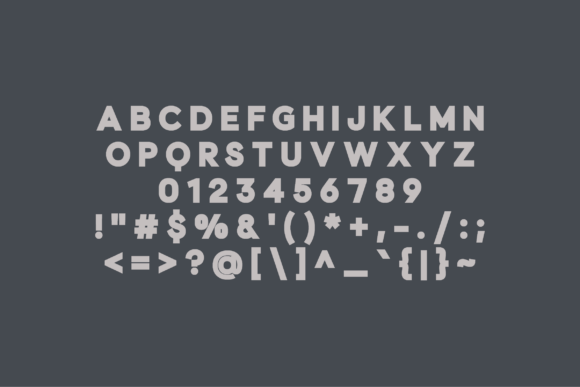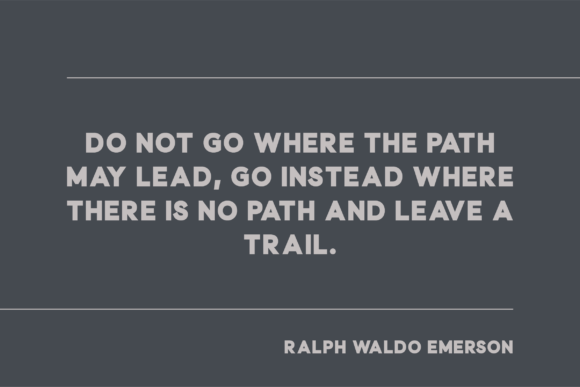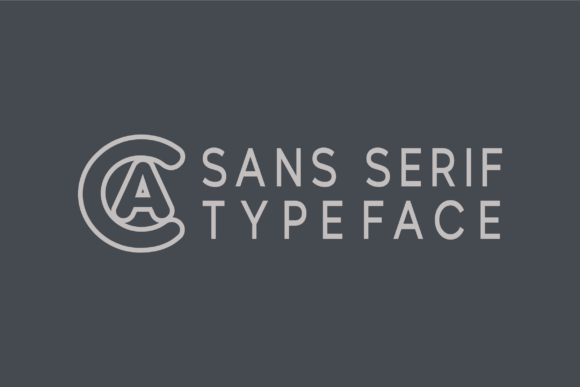
Meet Your New Creative Partner: Cipherset Font
Have you ever stared at a blank canvas, searching for the perfect font to bring your design to life? The struggle is real, but what if we told you that your search is over? Introducing Cipherset Font, a modern and classy sans serif typeface that’s about to become your new best friend.
This beautifully crafted font is designed to elevate your designs, whether it’s a logo, wedding invitation, or advertisement. With its versatility and wide range of characters, Cipherset Font is the perfect addition to any designer’s toolkit. From print to digital, this font is sure to impress and leave a lasting impression on your audience.
- Character Set: This font features a comprehensive character set, including uppercase and lowercase letters, numerals, punctuation marks, and special characters, making it suitable for a variety of applications.
- Unique Characteristic: The Cipherset Font boasts a distinctive, ciphers-inspired design that adds a touch of mystery and sophistication to any text.
- Language Support: The Cipherset Font supports a wide range of languages, including English, Spanish, French, German, Italian, and many others, making it a versatile choice for global applications.
- Kerning and Ligatures: This font features advanced kerning and ligature support, ensuring that text sets are rendered with precision and elegance.
Cipherset Font Review
First of all, let’s talk about what I love about Cipherset Font – ✨ the unique and edgy aesthetic it brings to the table. The font’s futuristic vibe is perfect for sci-fi and tech-related projects. It’s also great for adding a touch of mystery and sophistication to any design.
Another thing I appreciate is the wide range of weights and styles available, making it easy to customize and match the font to your design needs. This versatility is a major plus for designers who like to experiment and push the boundaries of their work.
While Cipherset Font has a lot going for it, there are some limitations to consider:
- ⚠️ The font can be difficult to read in smaller sizes, which may limit its use in body text or other contexts where legibility is crucial.
- ⚠️ The font’s unconventional design may not be suitable for all types of projects or audiences, particularly those who prefer more traditional or conservative design elements.
In conclusion, Cipherset Font is a great addition to any designer’s toolkit, but it’s essential to be aware of its limitations. With its unique aesthetic and wide range of styles, it’s perfect for projects that require a touch of futurism and sophistication. However, it may not be the best choice for every design scenario, so be sure to use it judiciously.
Tips for Getting the Most Out of Cipherset Font
Use Cipherset Font to add a touch of sophistication and elegance to your designs.
Pair Cipherset Font with bold or italic fonts to create visual interest.
Cipherset Font is perfect for:
Creating elegant and sophisticated business cards.
Designing high-end marketing materials.
Adding a touch of sophistication to your website’s typography.